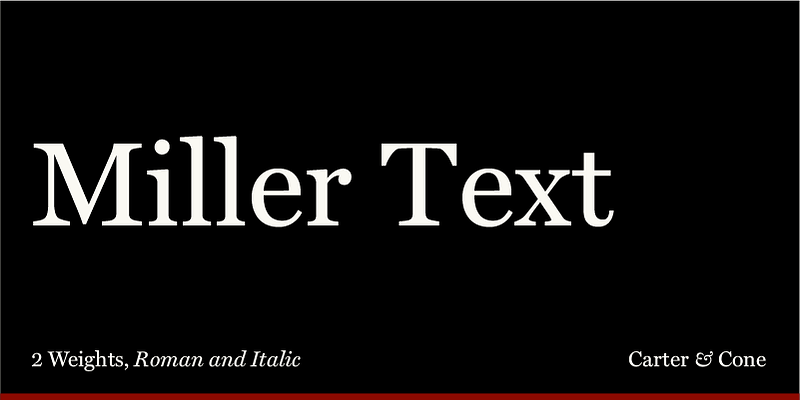
Miller Text Font Free Download is a classic serif typeface designed for comfortable long-form reading and traditional editorial use. Created by Matthew Carter, Miller Text is rooted in 19th-century Scotch Roman styles, offering elegance, warmth, and refined readability. It’s an excellent choice for newspapers, magazines, books, and any typographic setting that demands clarity, sophistication, and historical depth.
The font features strong vertical stress, bracketed serifs, and balanced proportions, making it ideal for both body text and supporting headings. Miller Text also includes multiple weights and optical sizes tailored specifically for printed text environments.